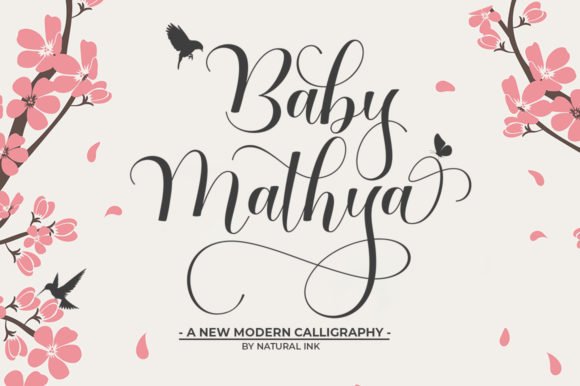
Introduction to Baby Mathya Font
Baby Mathya is an elegant and flowing handwritten font.
It is PUA encoded which means you can access all of the glyphs and swashes with ease It features a varying baseline, smooth lines, gorgeous glyphs and stunning alternates.
Baby Mathya Font offers exceptional quality and versatility, making it a valuable addition to your design toolkit. Whether you’re creating for personal projects or commercial use, Baby Mathya Font delivers professional results.